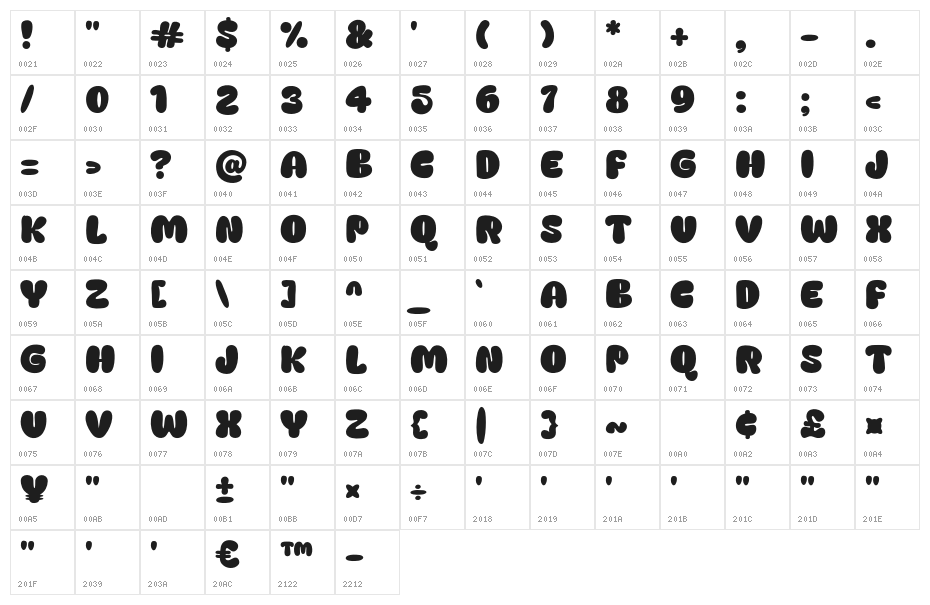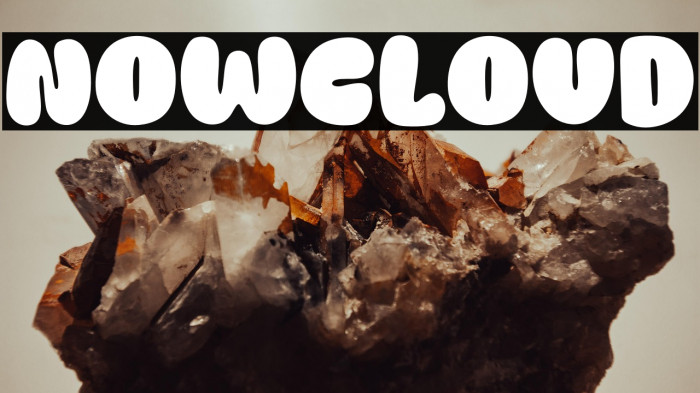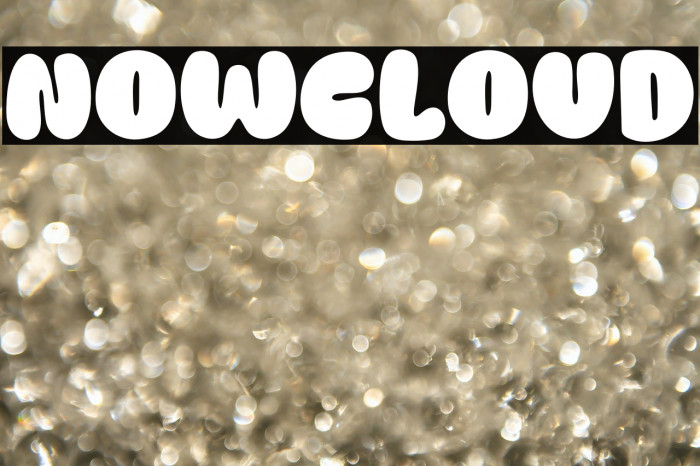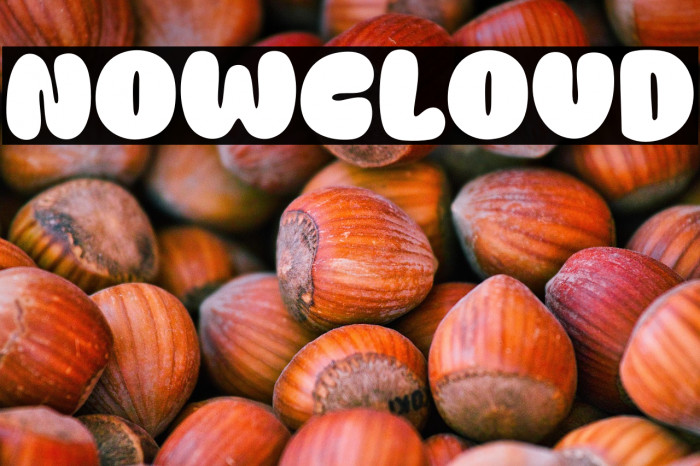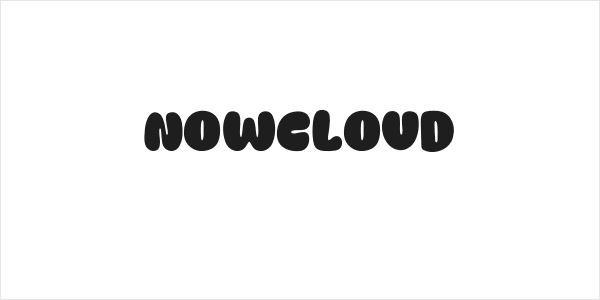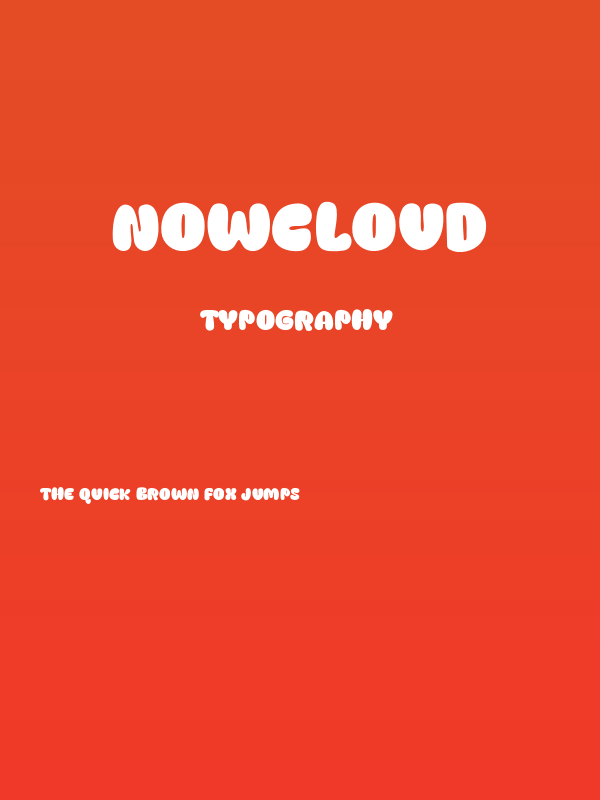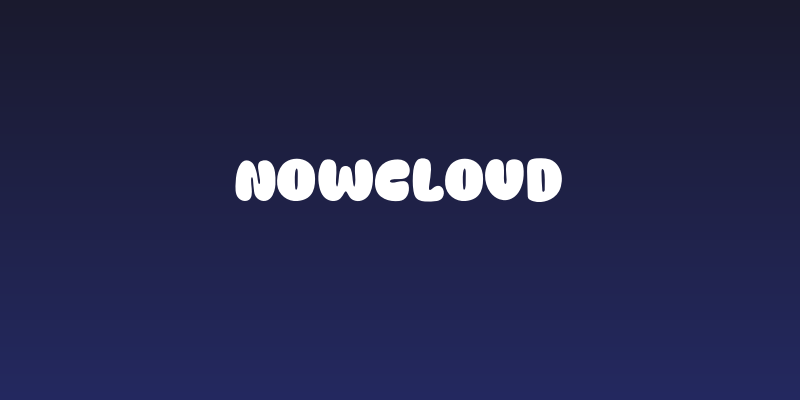
Nowcloud Font
Nowcloud Description
This font features bold, rounded characters with a playful and friendly appearance. The letters are uniformly thick, creating a strong visual impact. Each character is well-rounded, contributing to a cohesive and harmonious look. The font's style is reminiscent of bubble letters, making it ideal for designs that require a fun and approachable feel. The numbers and special characters maintain the same rounded and bold characteristics, ensuring consistency across all text elements. This font is suitable for projects that aim to convey warmth and approachability.
| Overall Style | Playful |
| Proposed Projects | Ideal for children's books, playful branding, event posters, and social media graphics. |